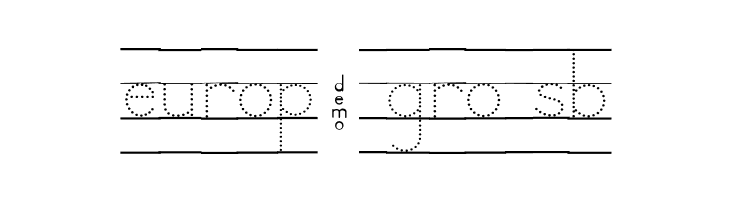
• DmoZBPrintArrowDot
An educational font with dotted lines and arrows for teaching handwriting.
• DmoZBCursive-Regular
A graceful cursive font with smooth, flowing lines and elegant style.
• DmoZBCursiveDotLine
A dotted cursive font designed for handwriting practice.
• DmoZBPrintArrowDotLine
A dotted line instructional font for handwriting practice with stroke guides.
• DmoZBCursiveArrow
A cursive font with decorative arrows, combining elegance with a playful twist.
• DmoZBPrint-Bold
A modern, rounded font with bold, clean lines and balanced spacing.
• DmoZBConnectDotLine
A dotted line font mimicking handwriting practice sheets, ideal for educational use.
• DmoZBPrintDotLine
A modern, dotted line font with geometric precision.
• DmoZBCursiveLine
A graceful cursive font with smooth, flowing lines and connected letters.
• DmoZBConnectLine
A classic cursive script font with smooth, connected letters and a sophisticated style.